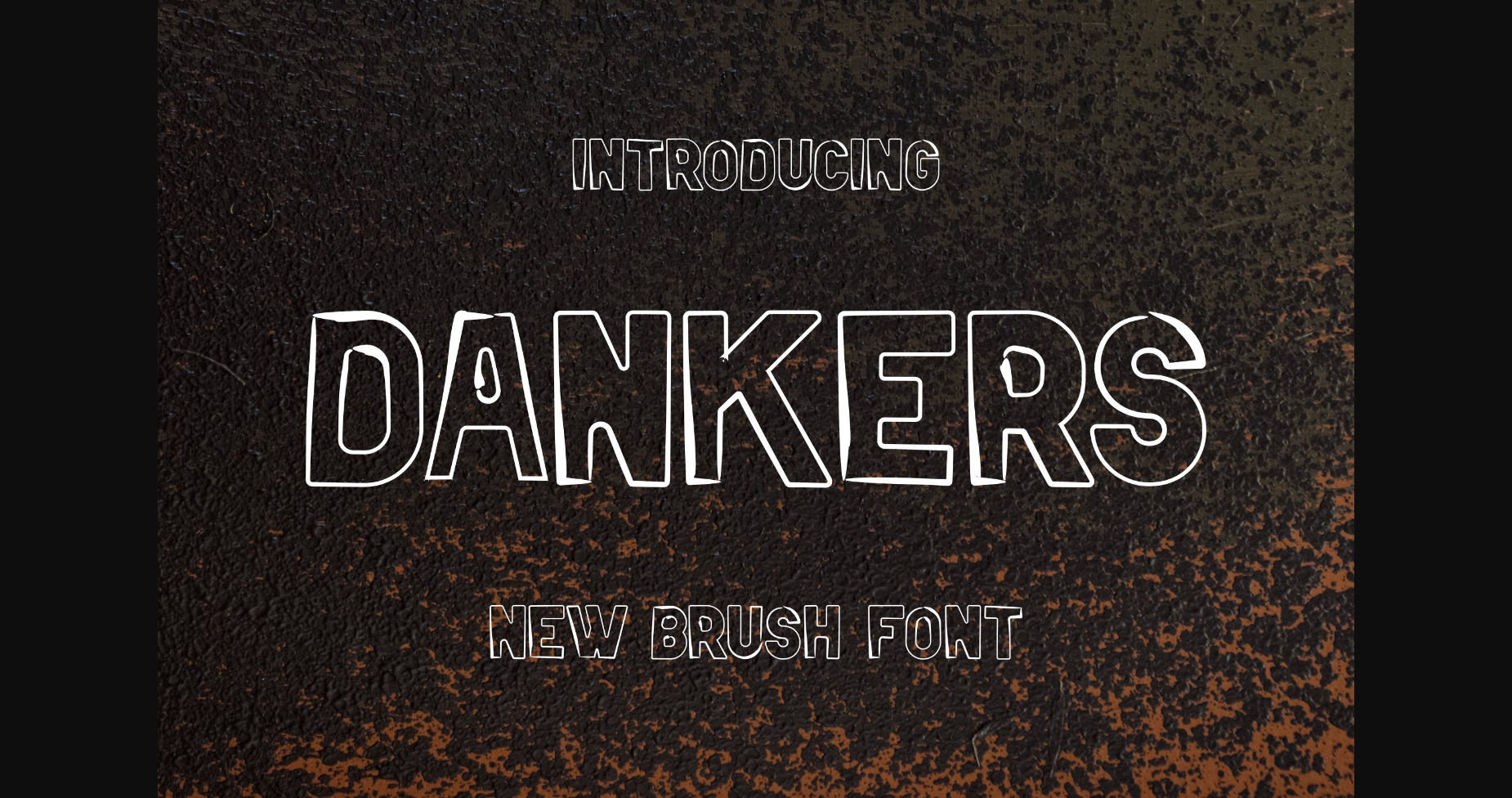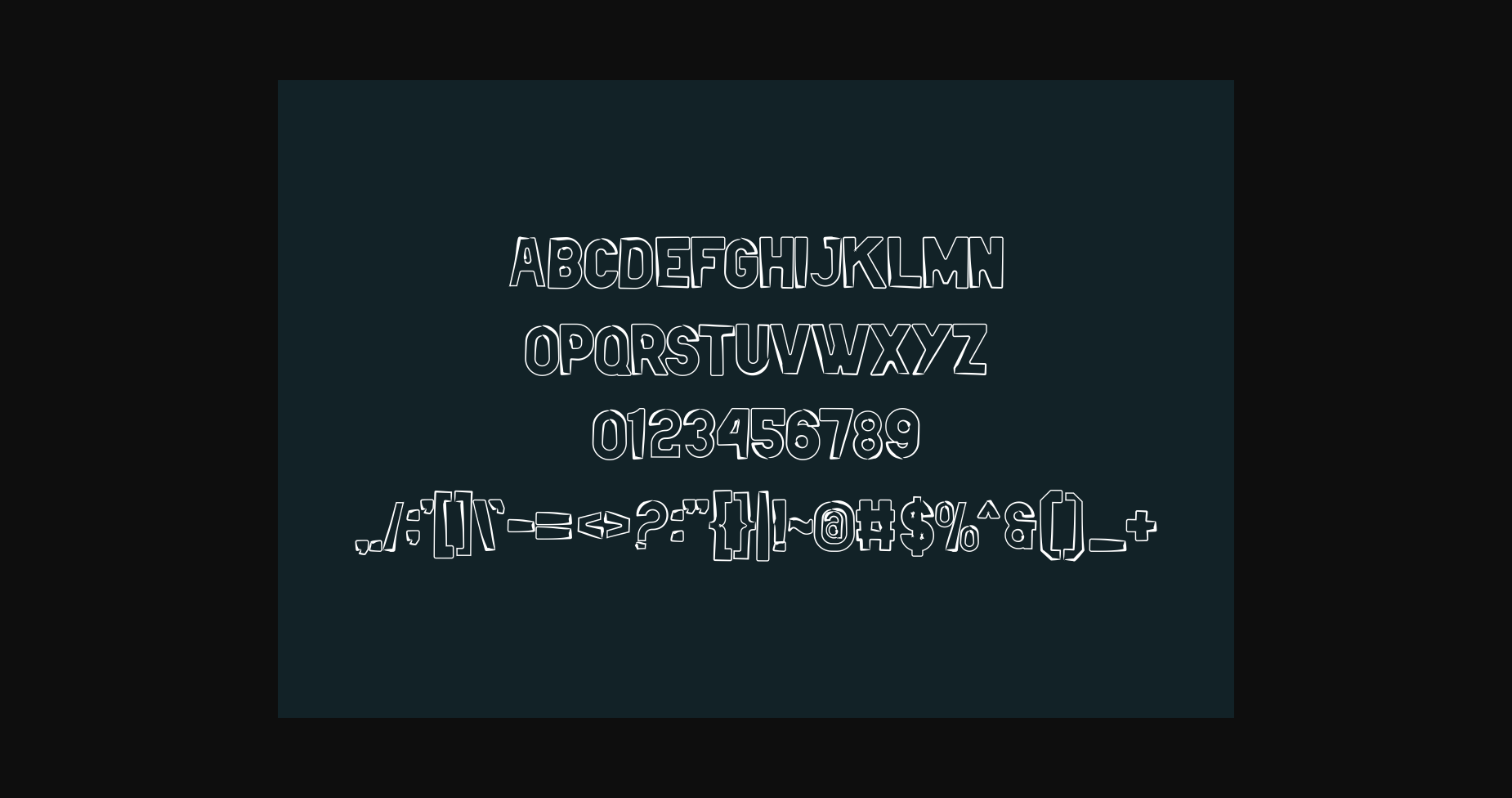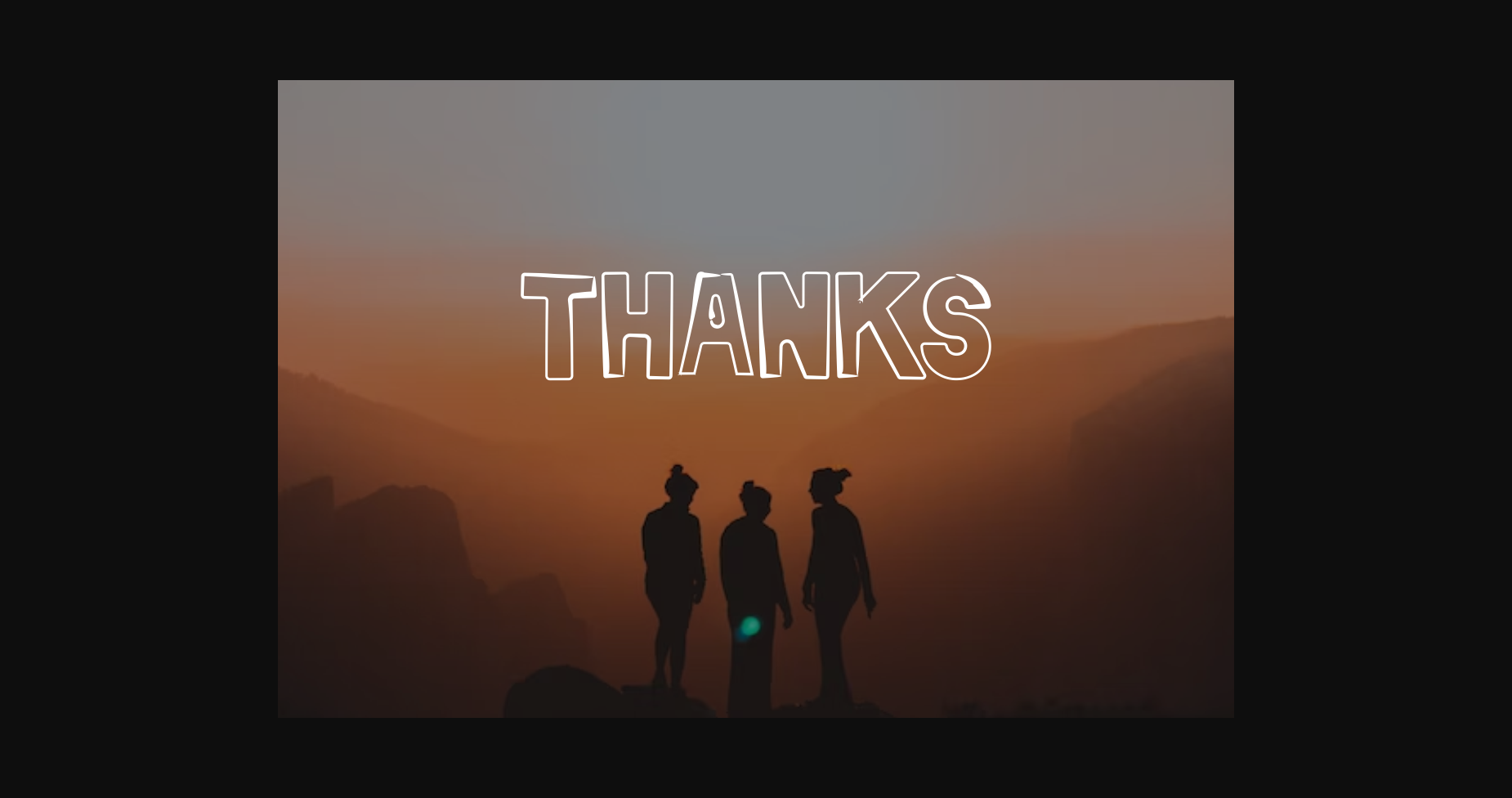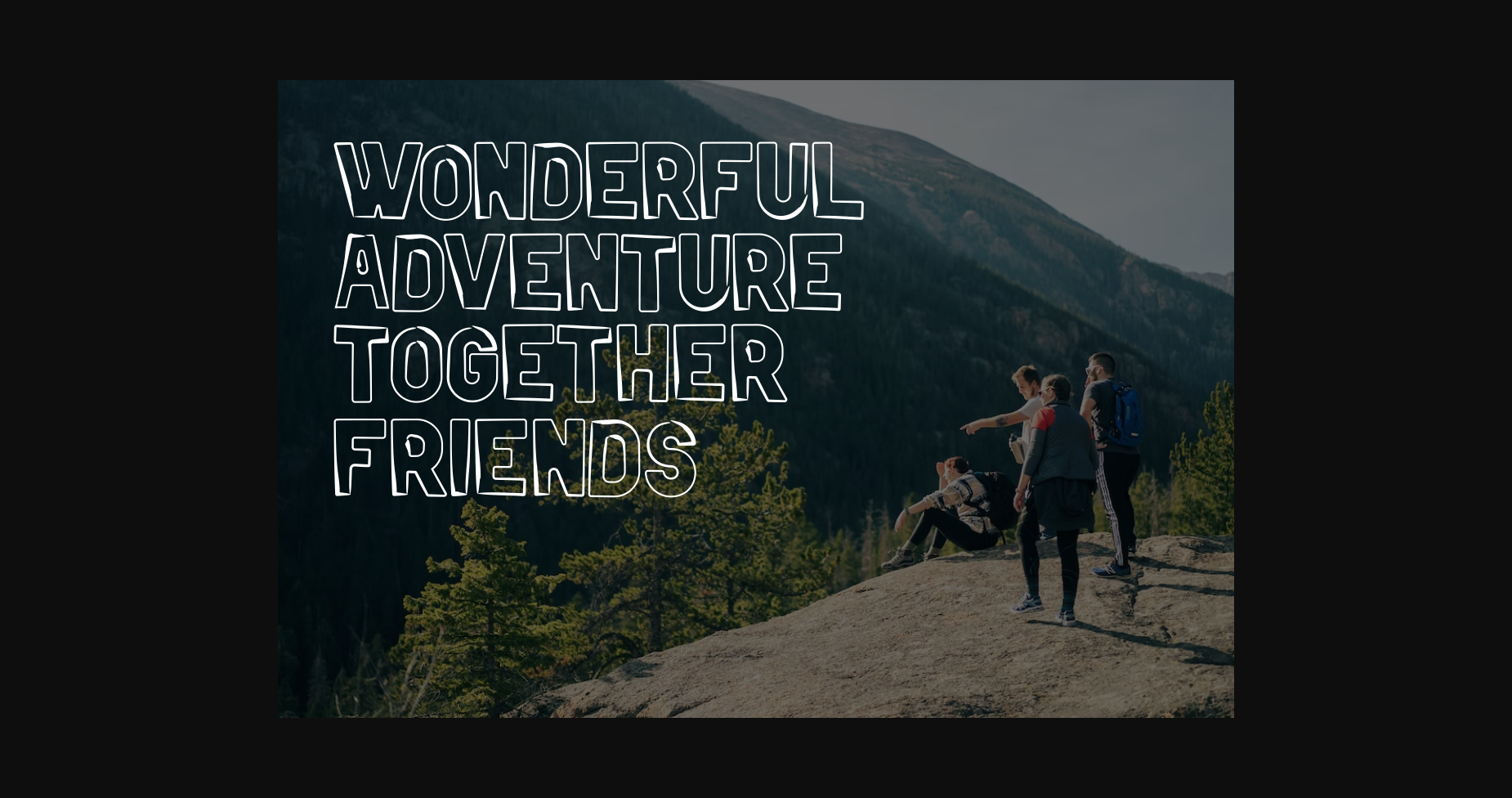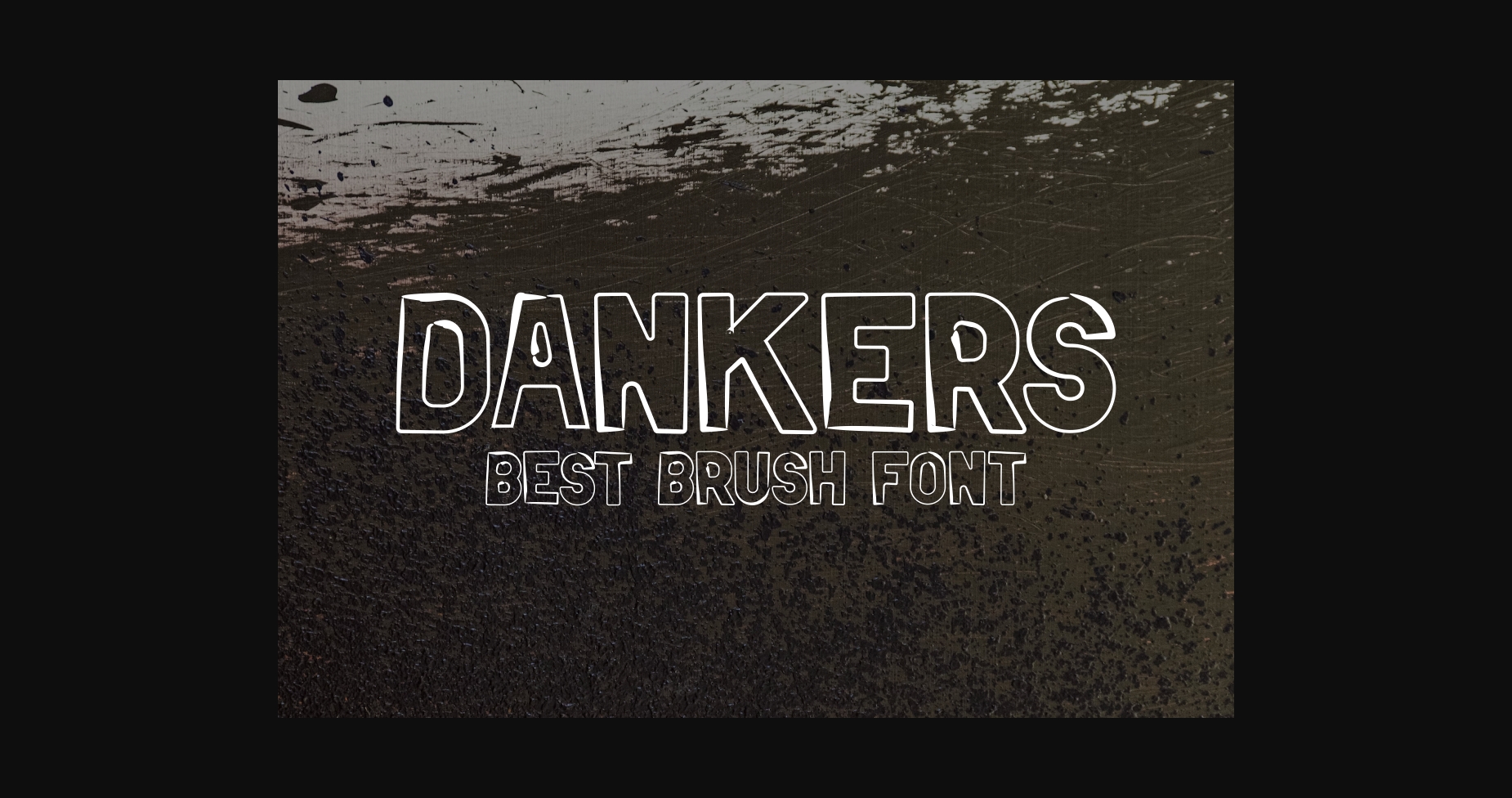
Dankers Font
About Dankers Font
Dankers is a modern font with a bold and authentic style. This lovely font is suitable for any branding project like logo, t-shirt printing, esports, and many more. Outstanding in a wide range of contexts.